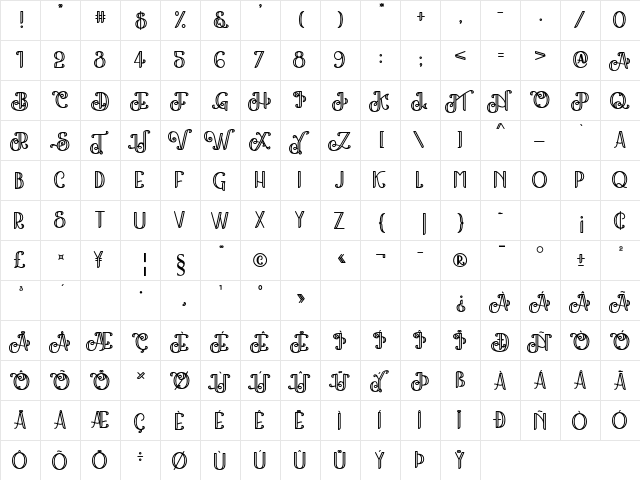
The Kingston Regular
Design Context for The Kingston Typeface
The Kingston is a composed and adaptable typeface that performs quietly and consistently across a wide range of design contexts.